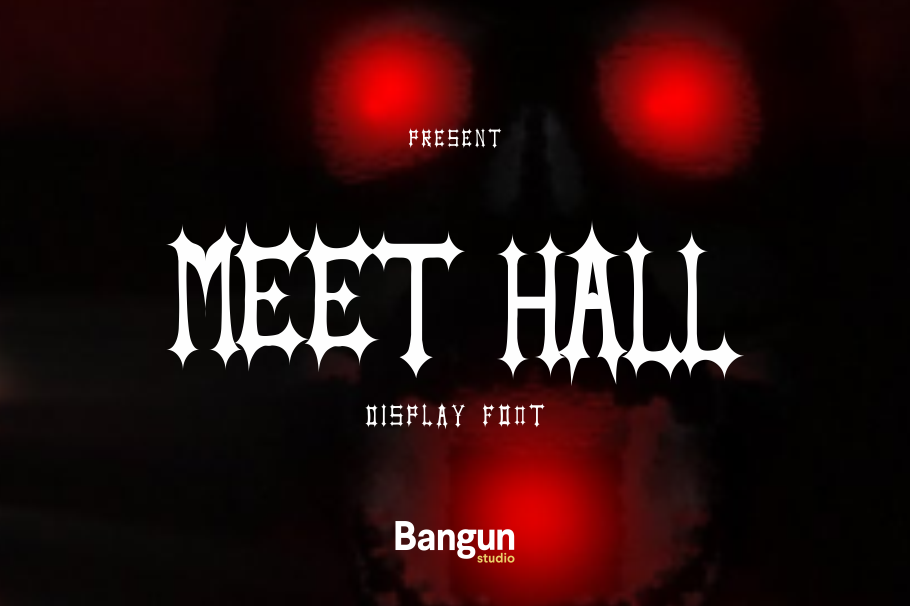
Meet hall
meet hall
edge and sharp “gothic” face, meet hall is a wickedly fresh update on the centuries blackletter form. Use its darkly cool character to your advantage in tattoos, horror-movie posters, or scary video games